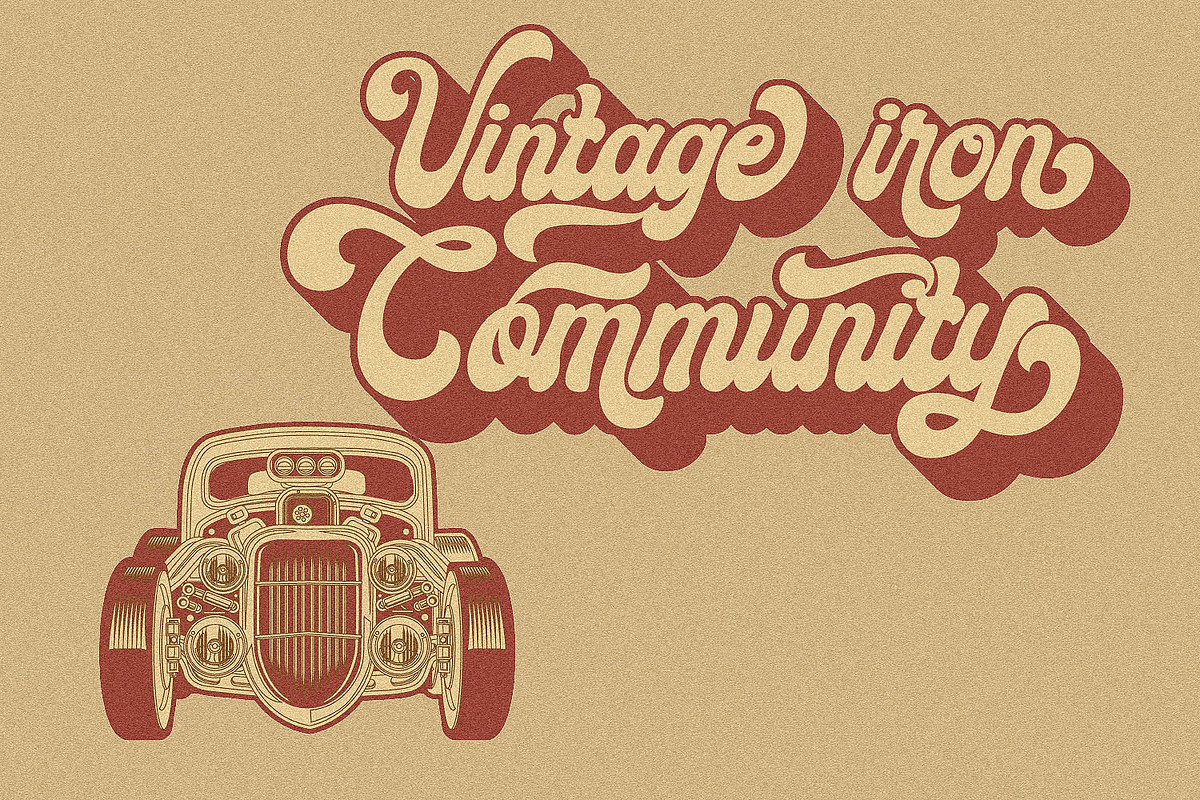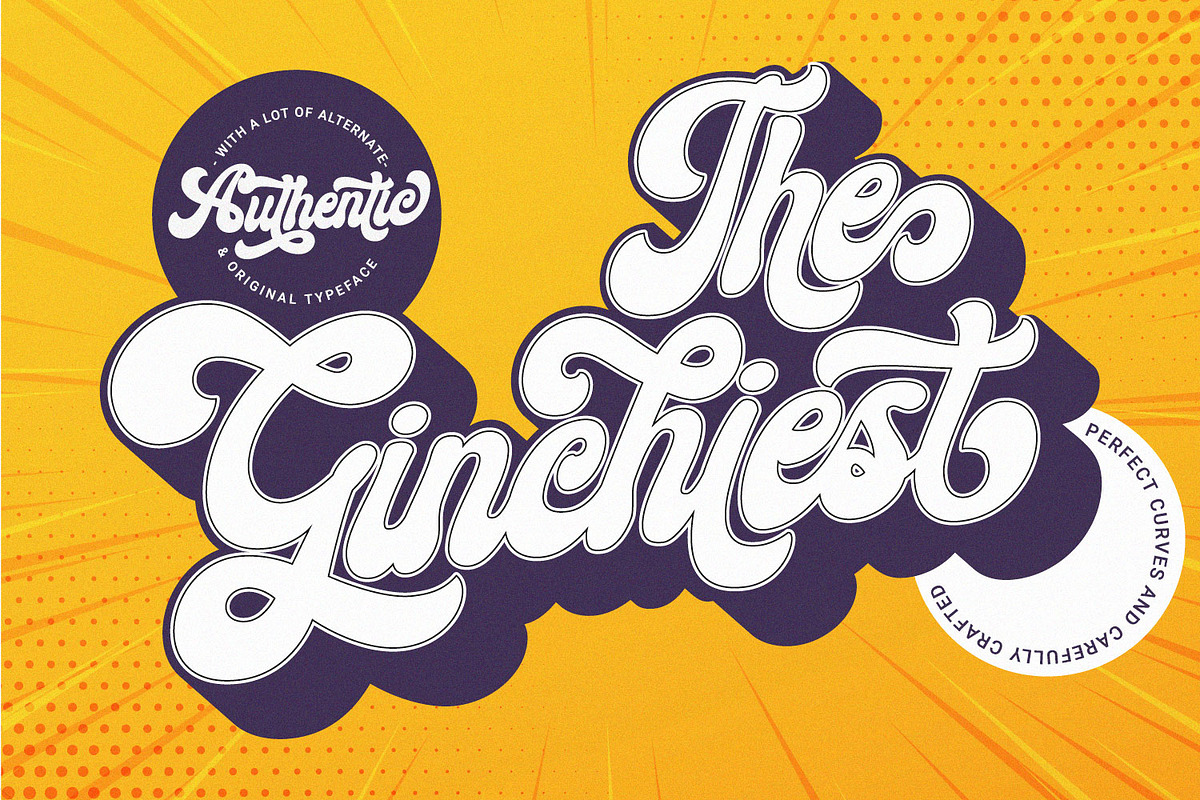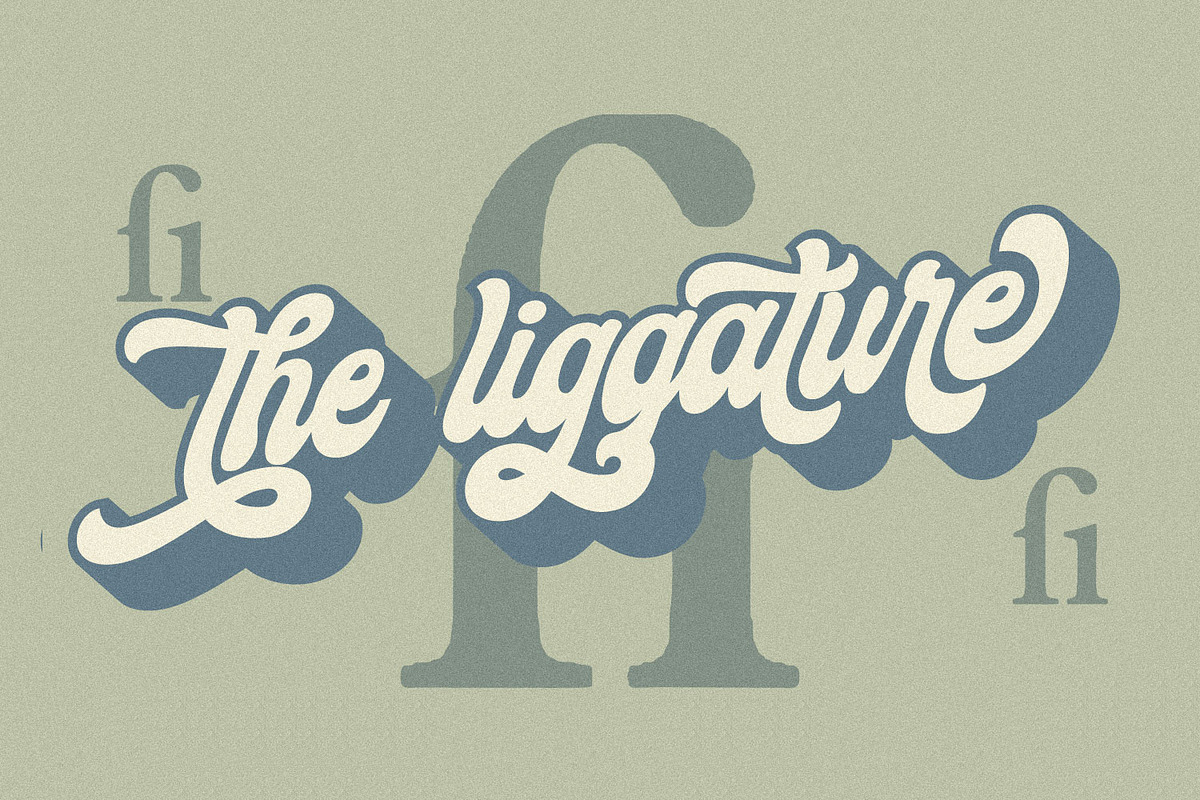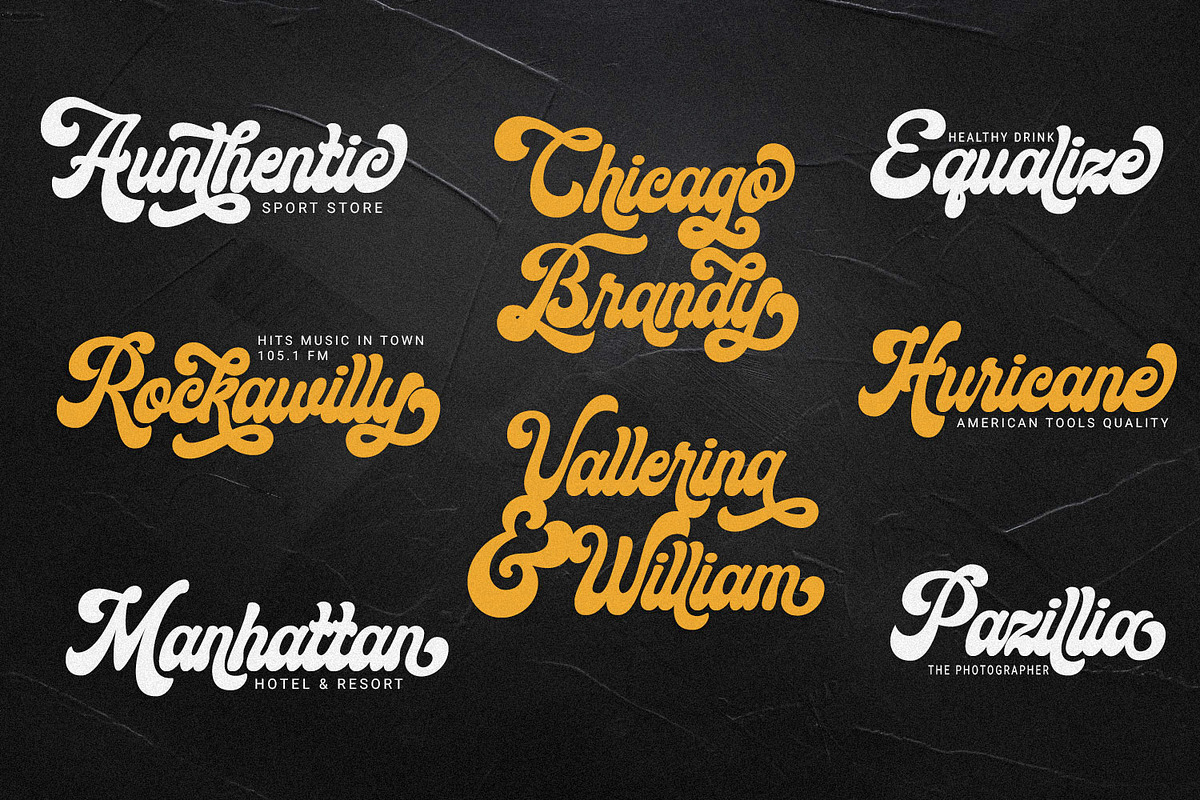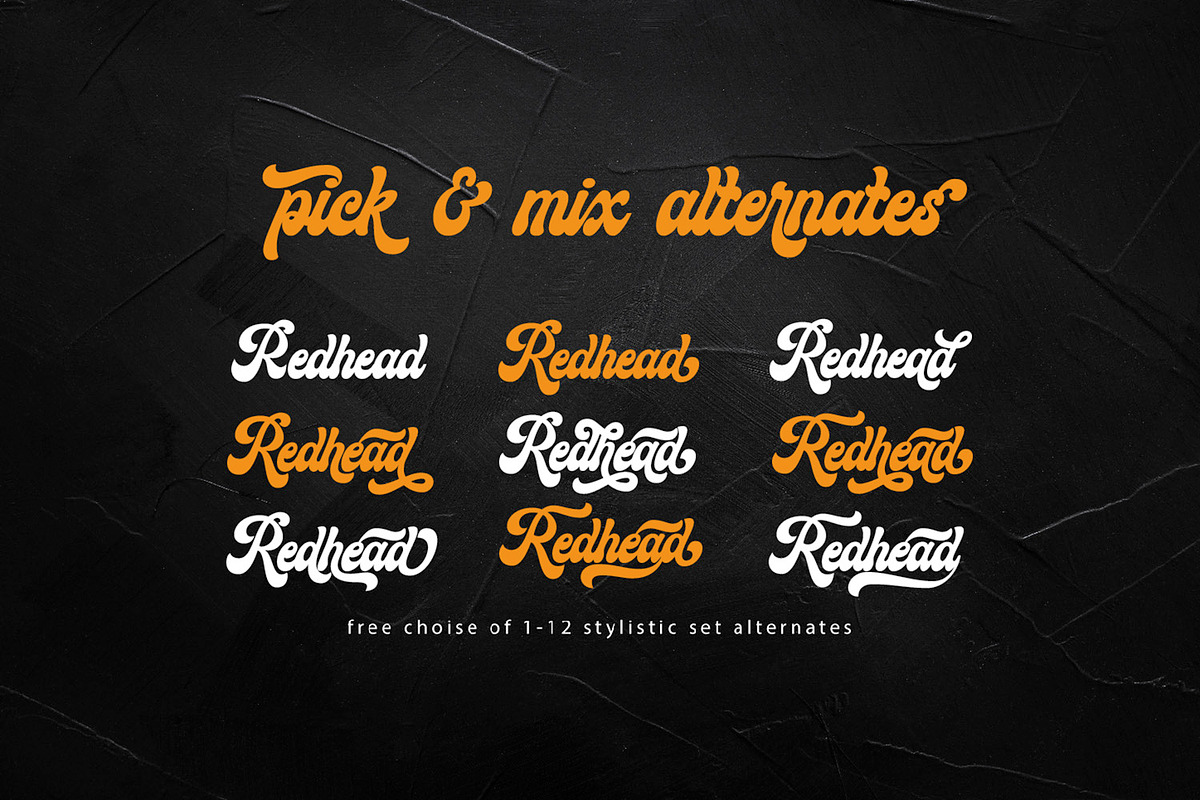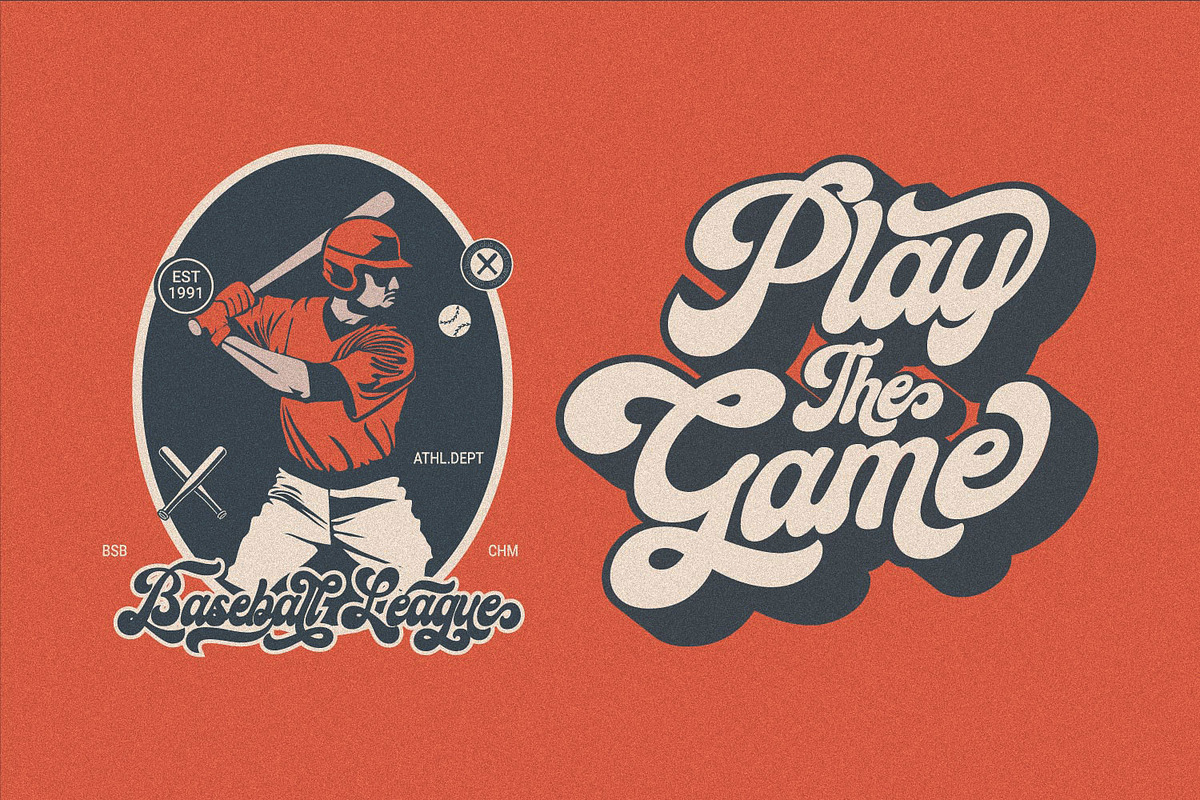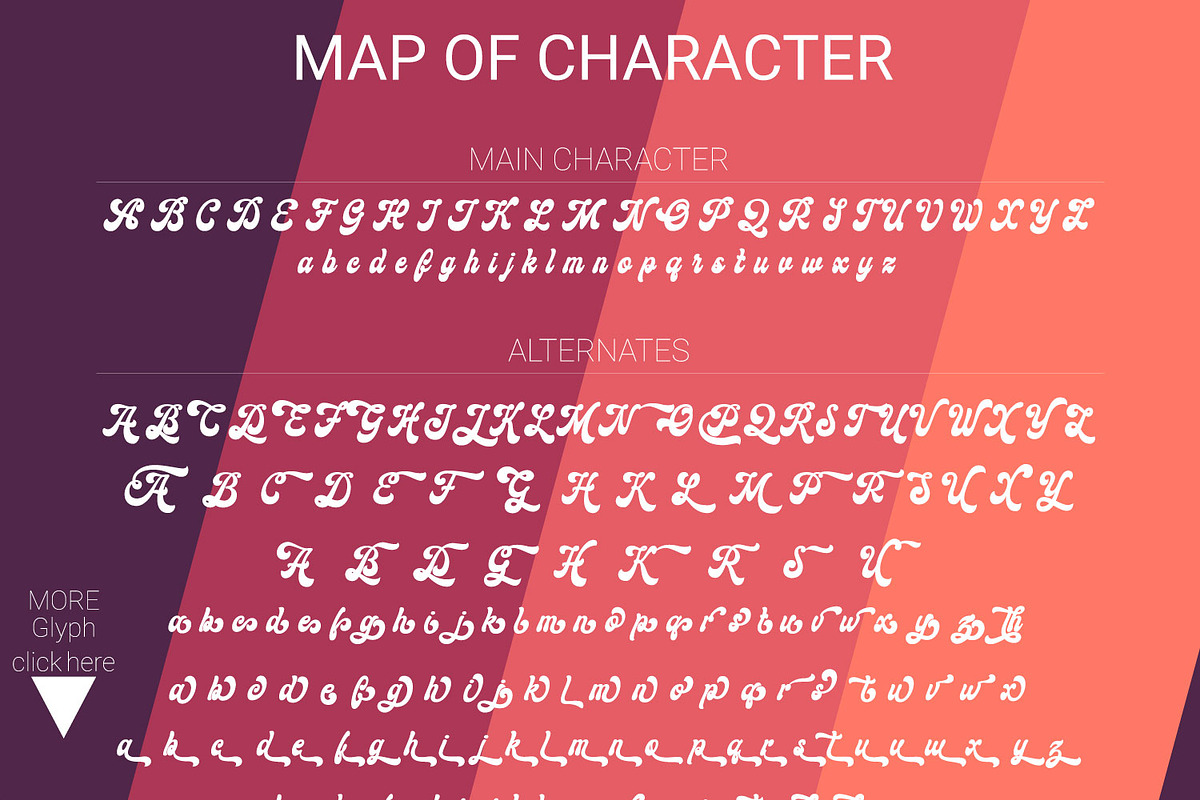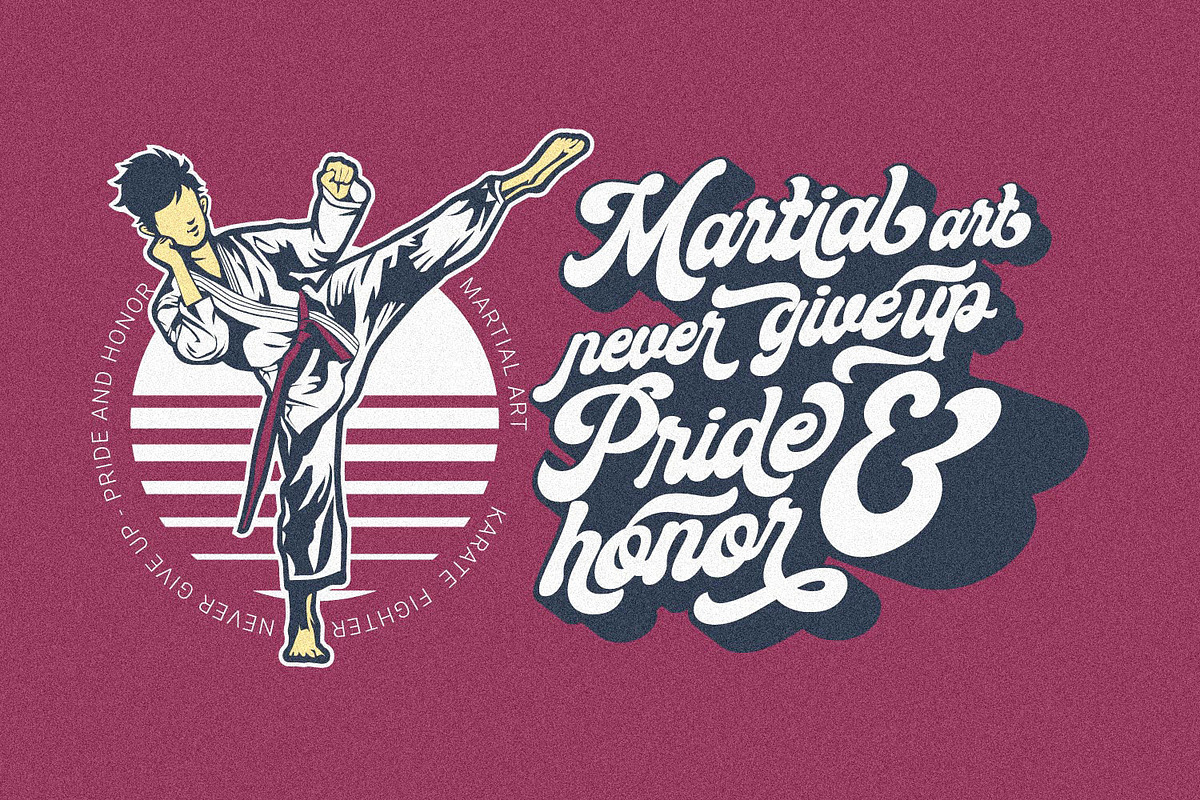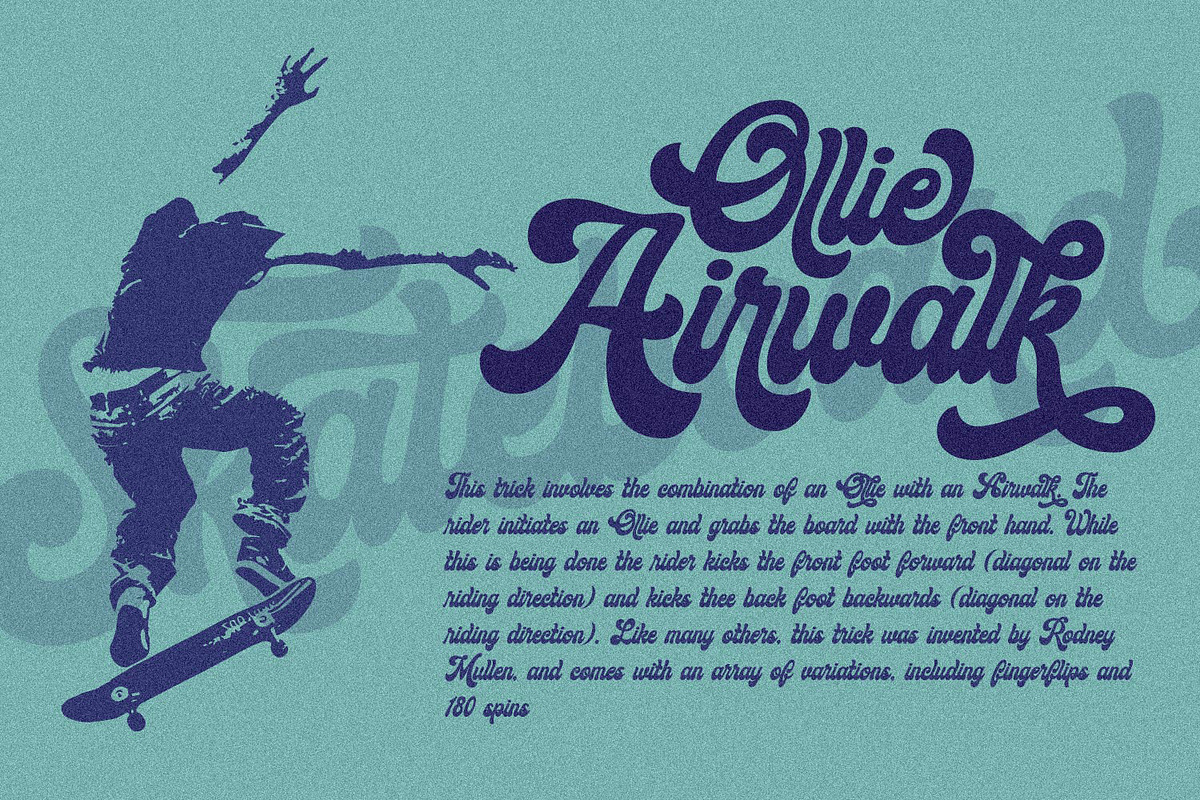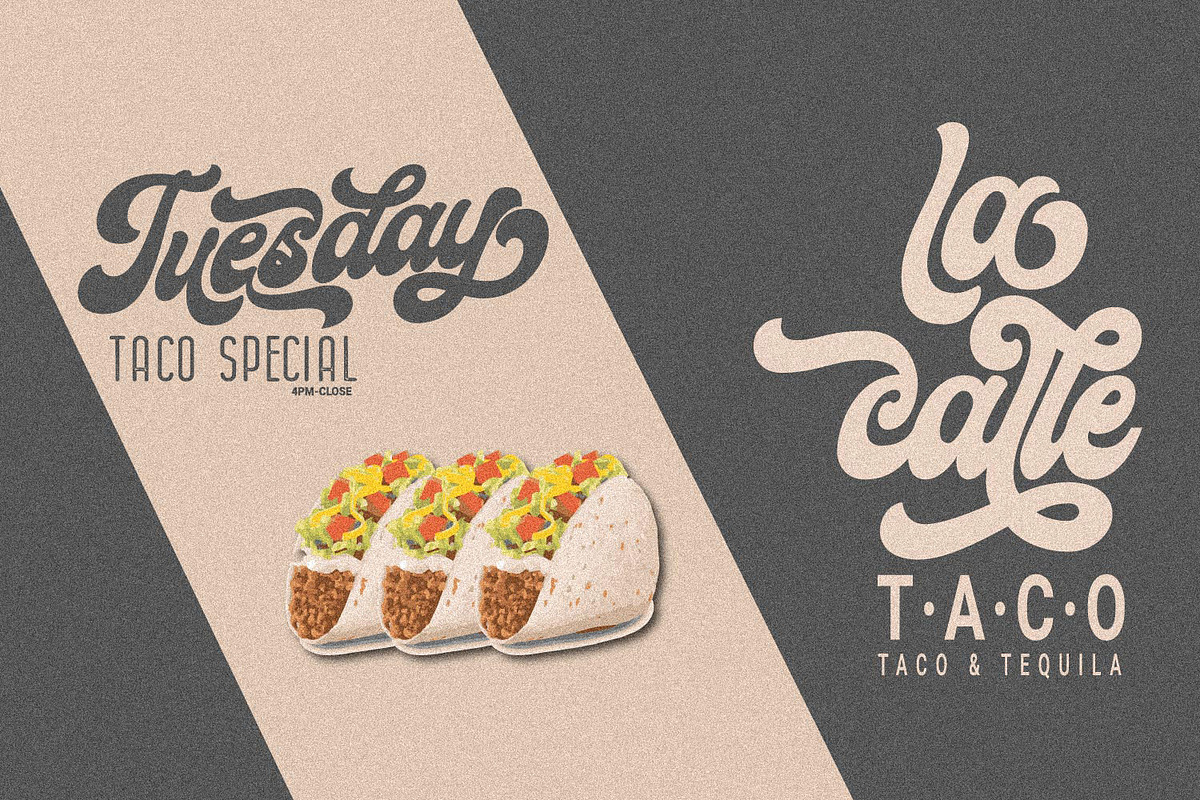
Ginchiest - Retro Bold Script
We introduce our new font named Ginchiest. According to its name, the word ‘Ginchiest’ is slang for something interesting, the coolest, the hippest, the prettiest, the smartest, the most fun to be around.
You’re the ginchiest! Maybe this is slang you have heard about; it represents Ginchiest font perfectly. The Ginchiest is a bold script font with retro vintage style. This font is perfect for you lettering lovers because we prepared lots of alternates and ligatures that are very eye-catching.
And of course we also designate this font for branding; it’s great in logos and logotypes. Bold style make your product look very confident to appear in the public market.
No doubt – its great choice for lettering and logotype. You’re the Ginchiest!